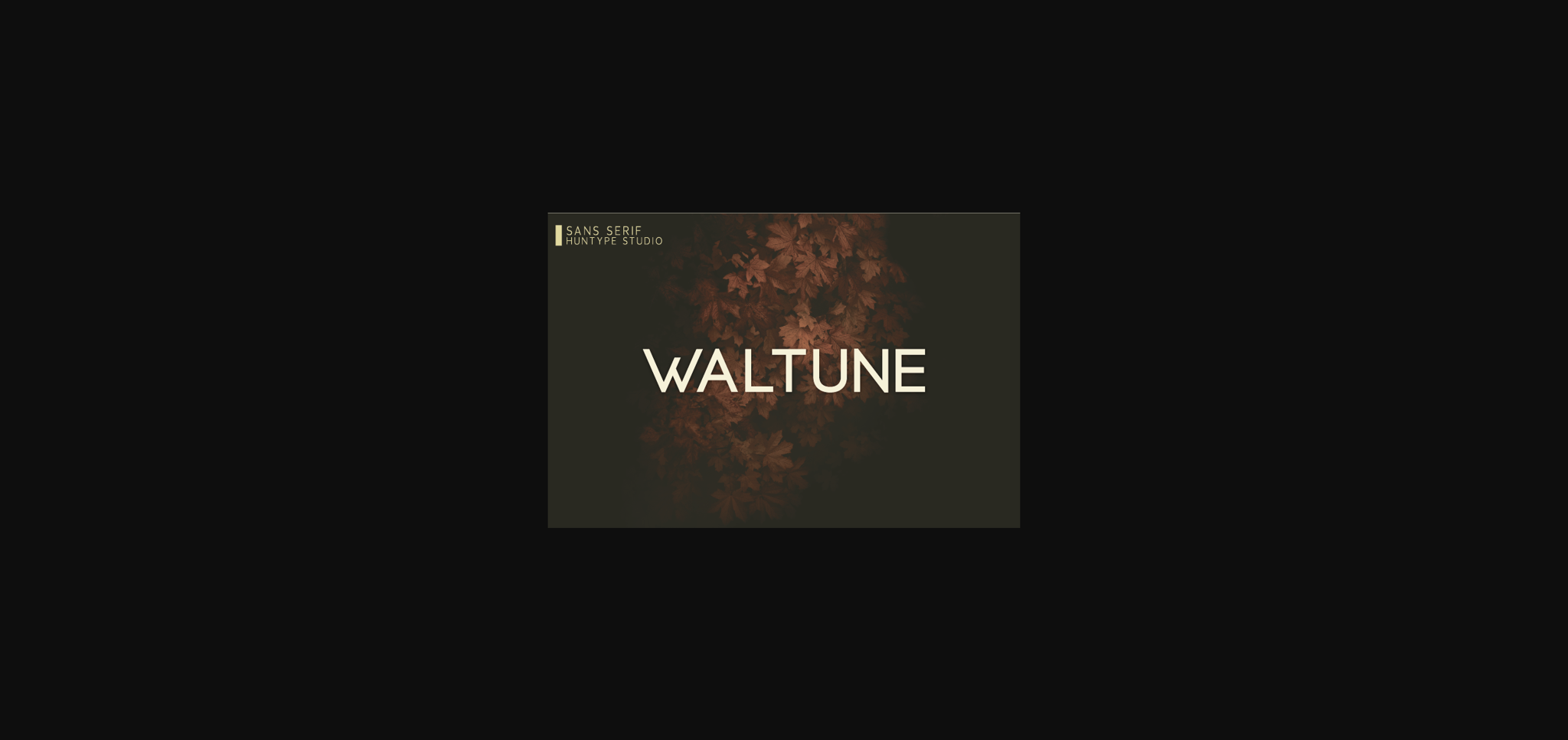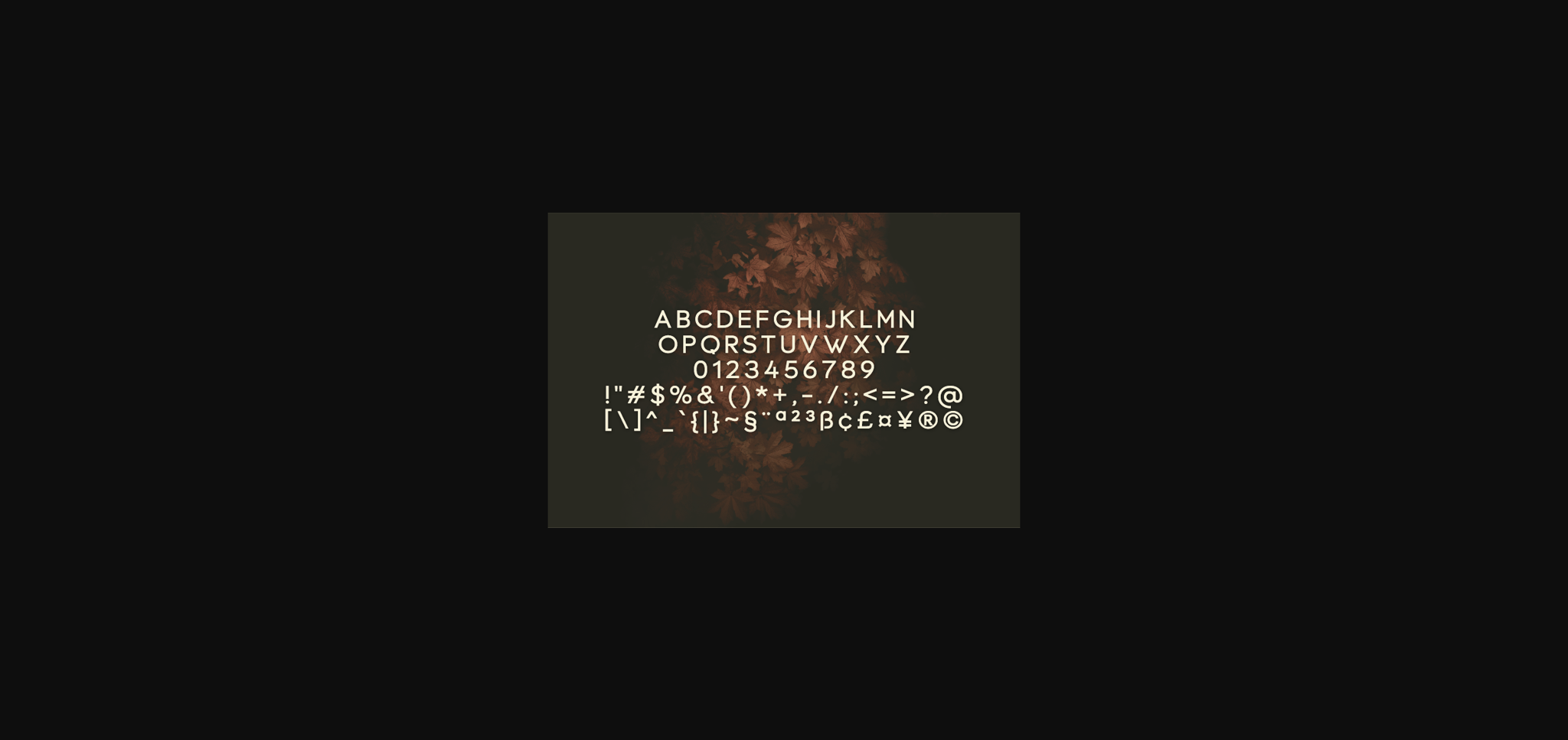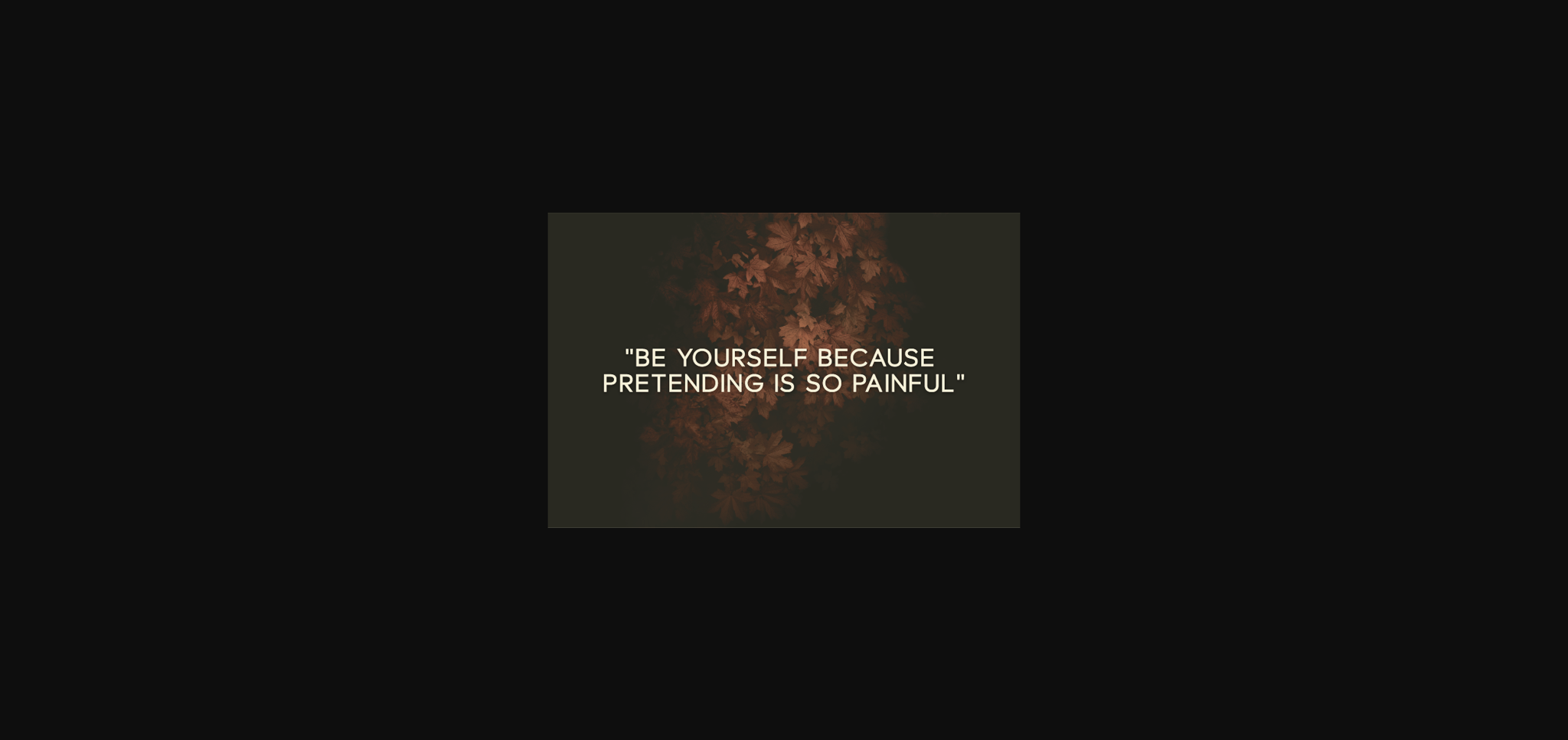
About Waltune Font
Waltune is a minimal and neat sans serif font. No matter the topic, this font will be an incredibly asset to your fonts’ library, as it has the potential to elevate any creation.